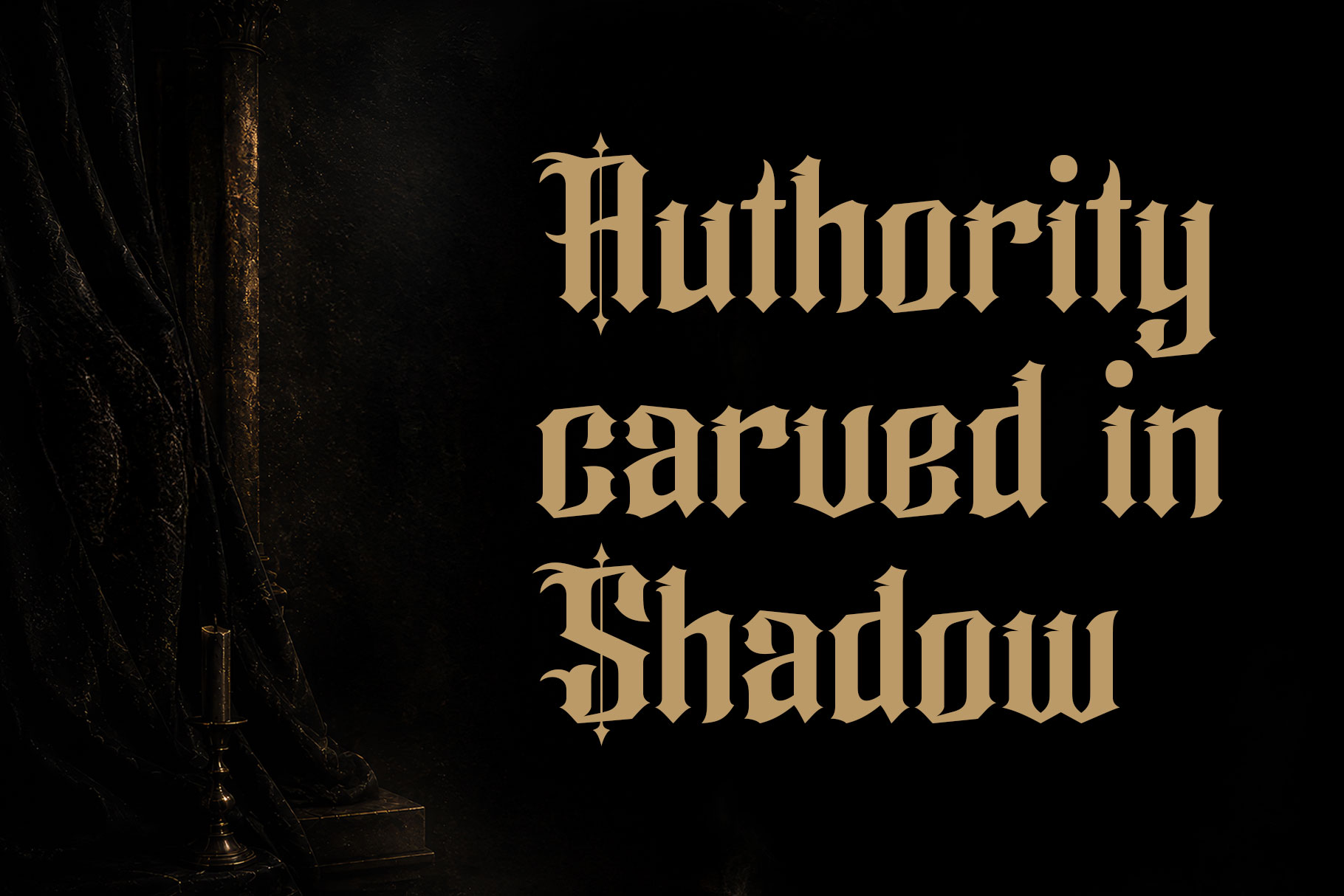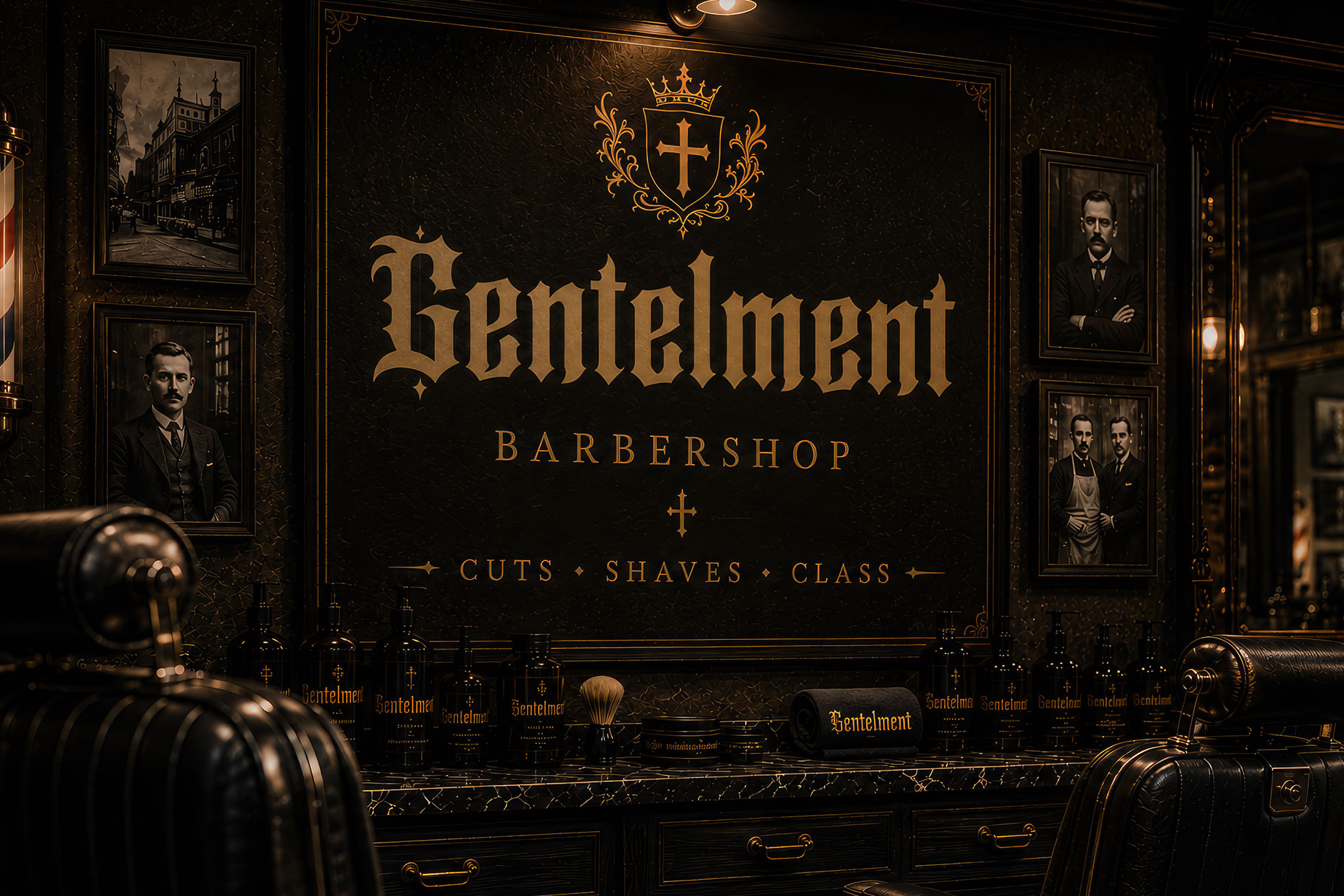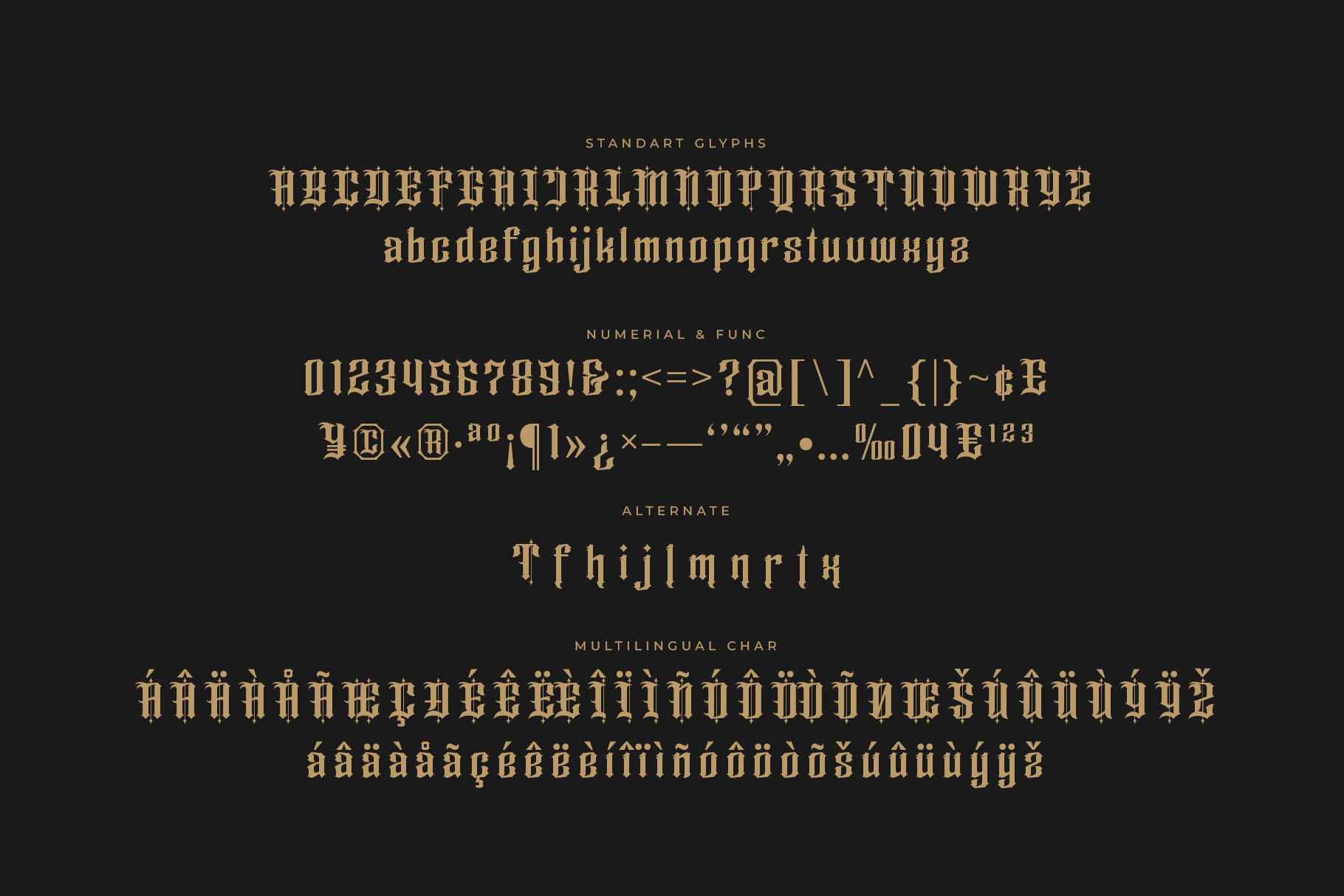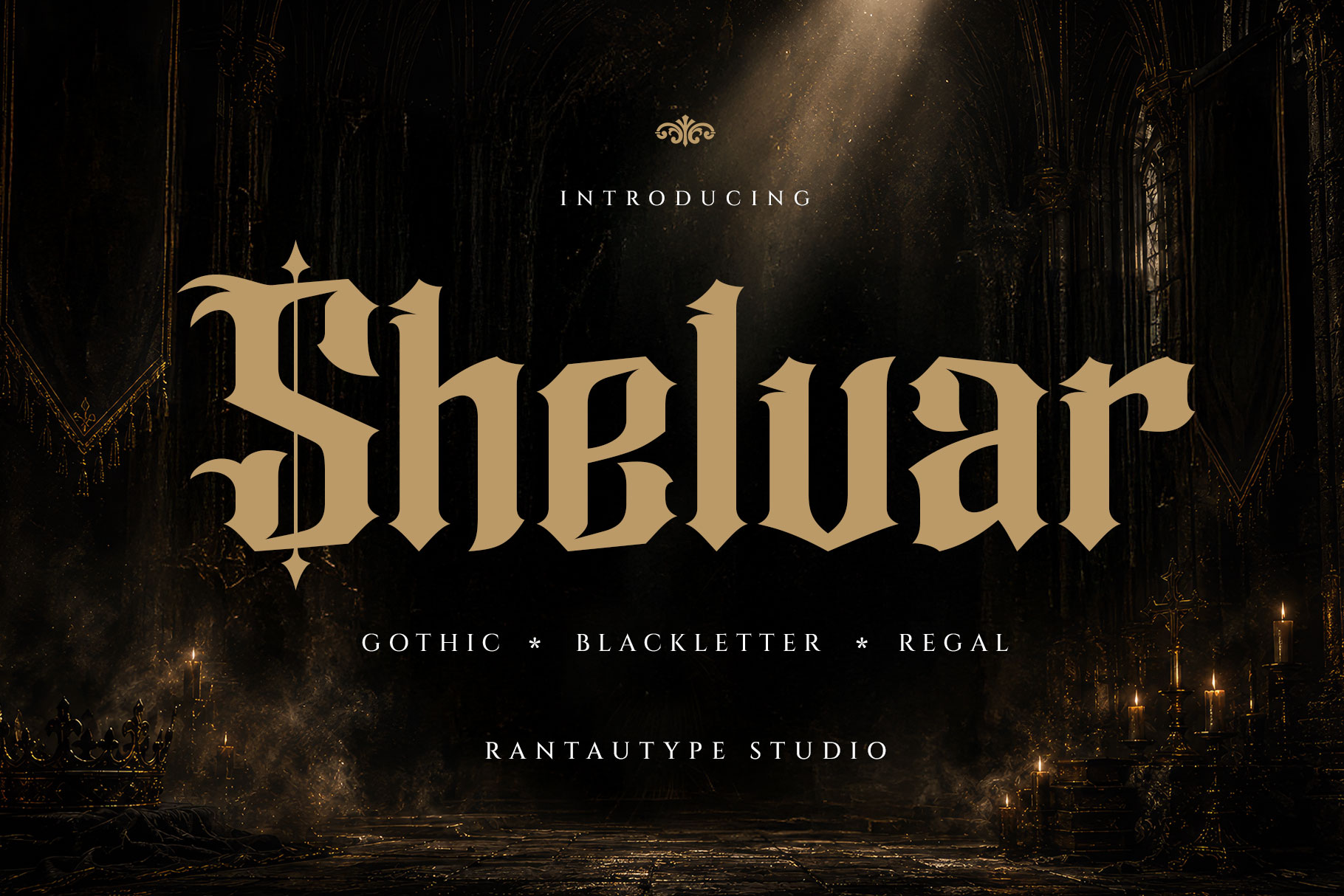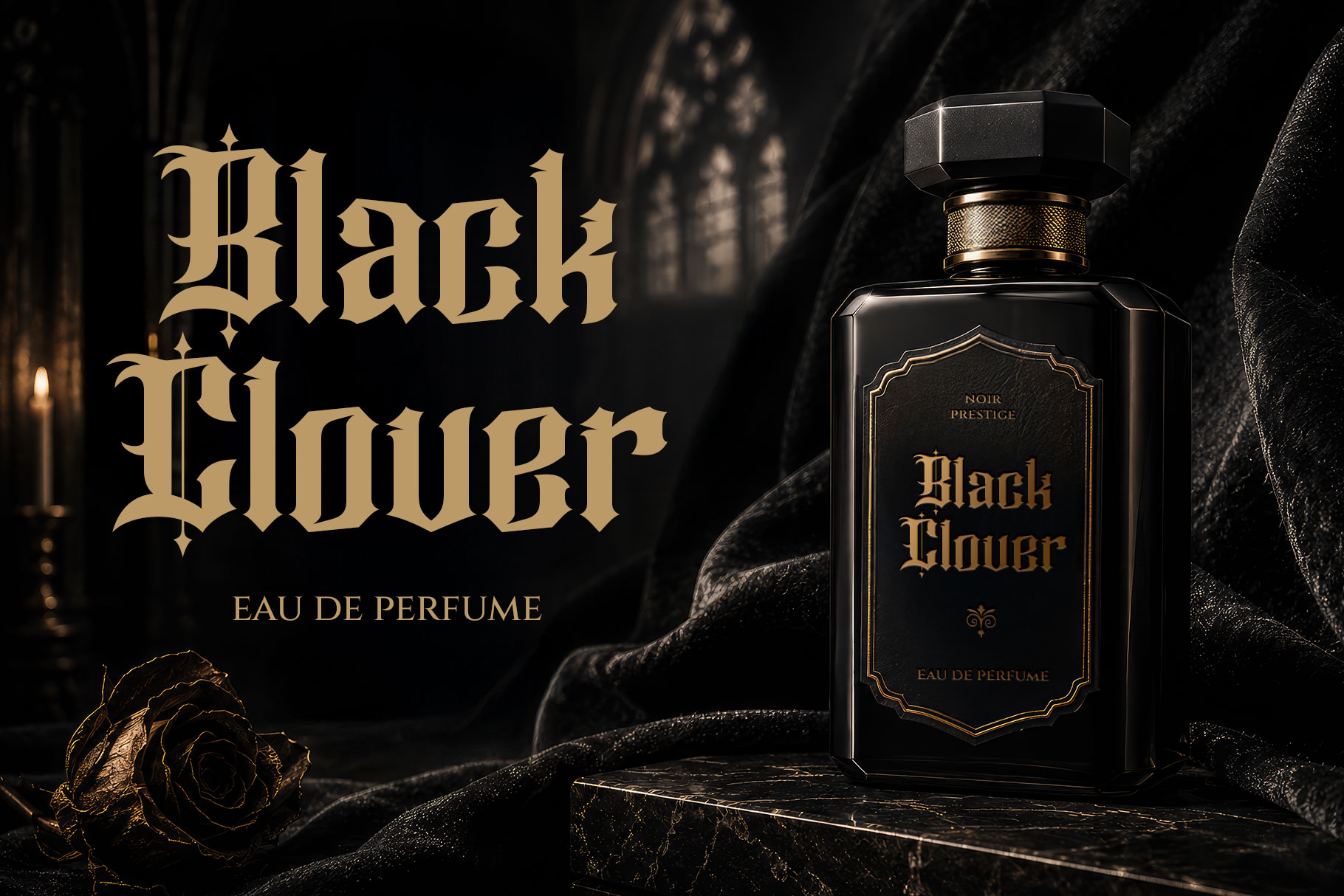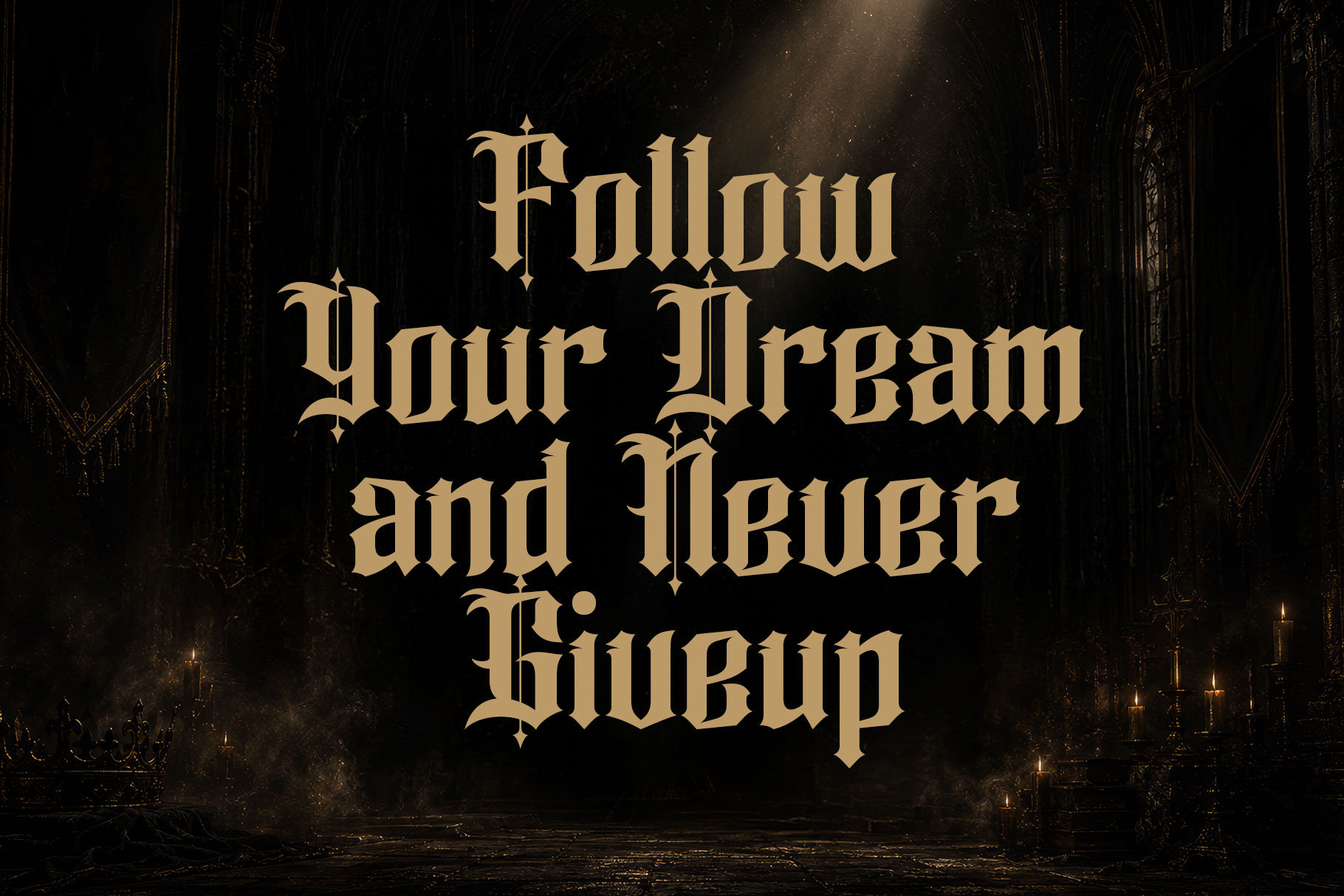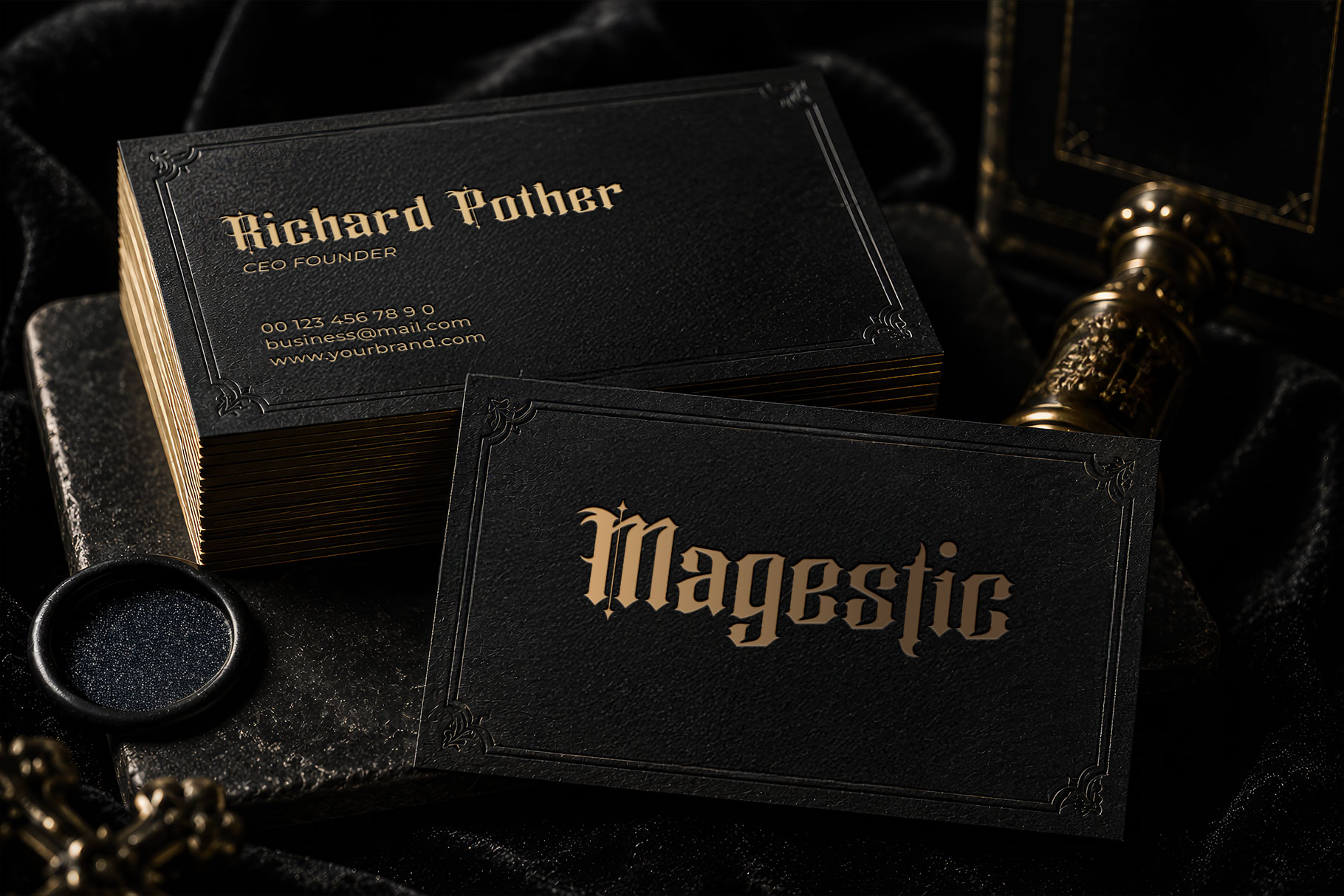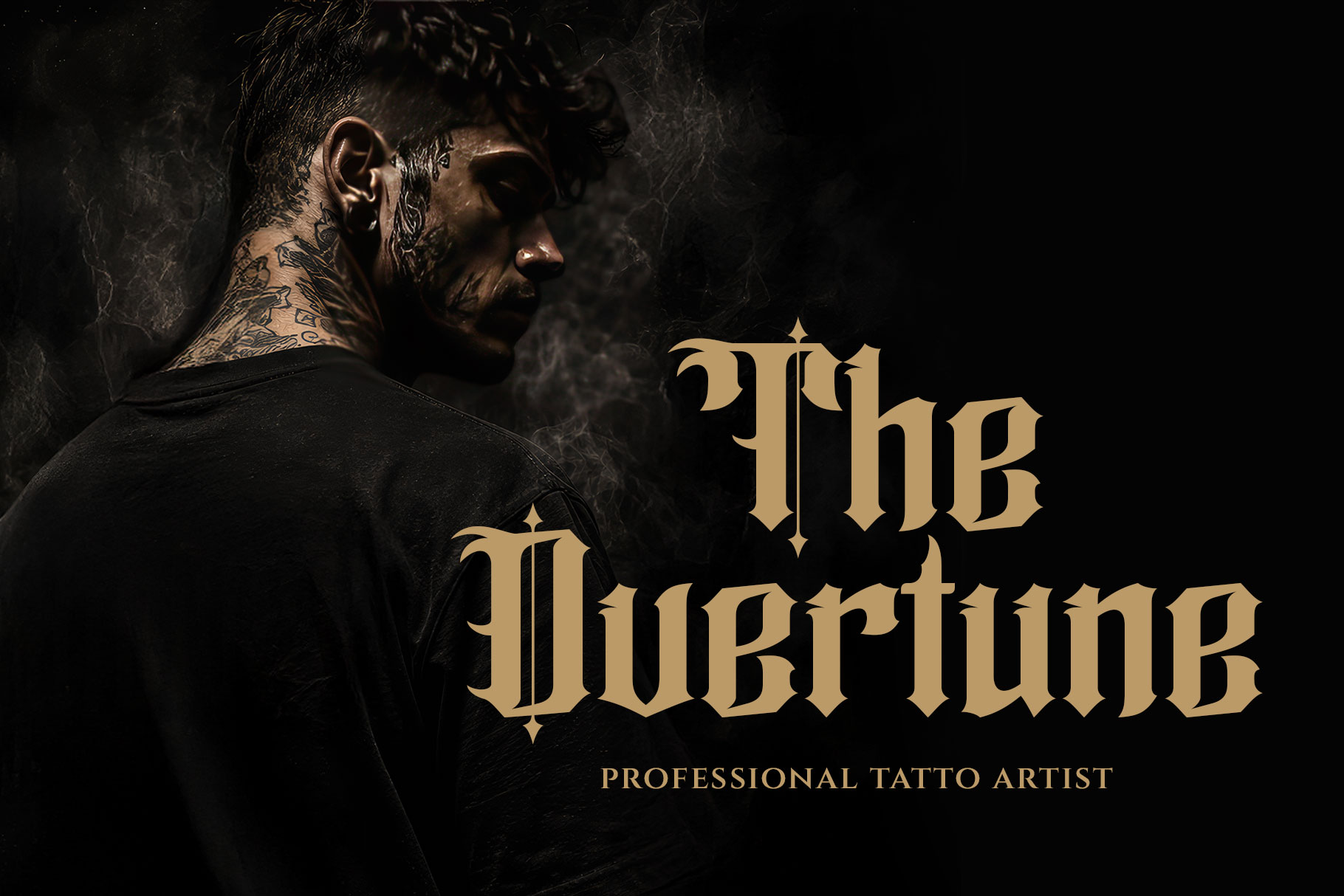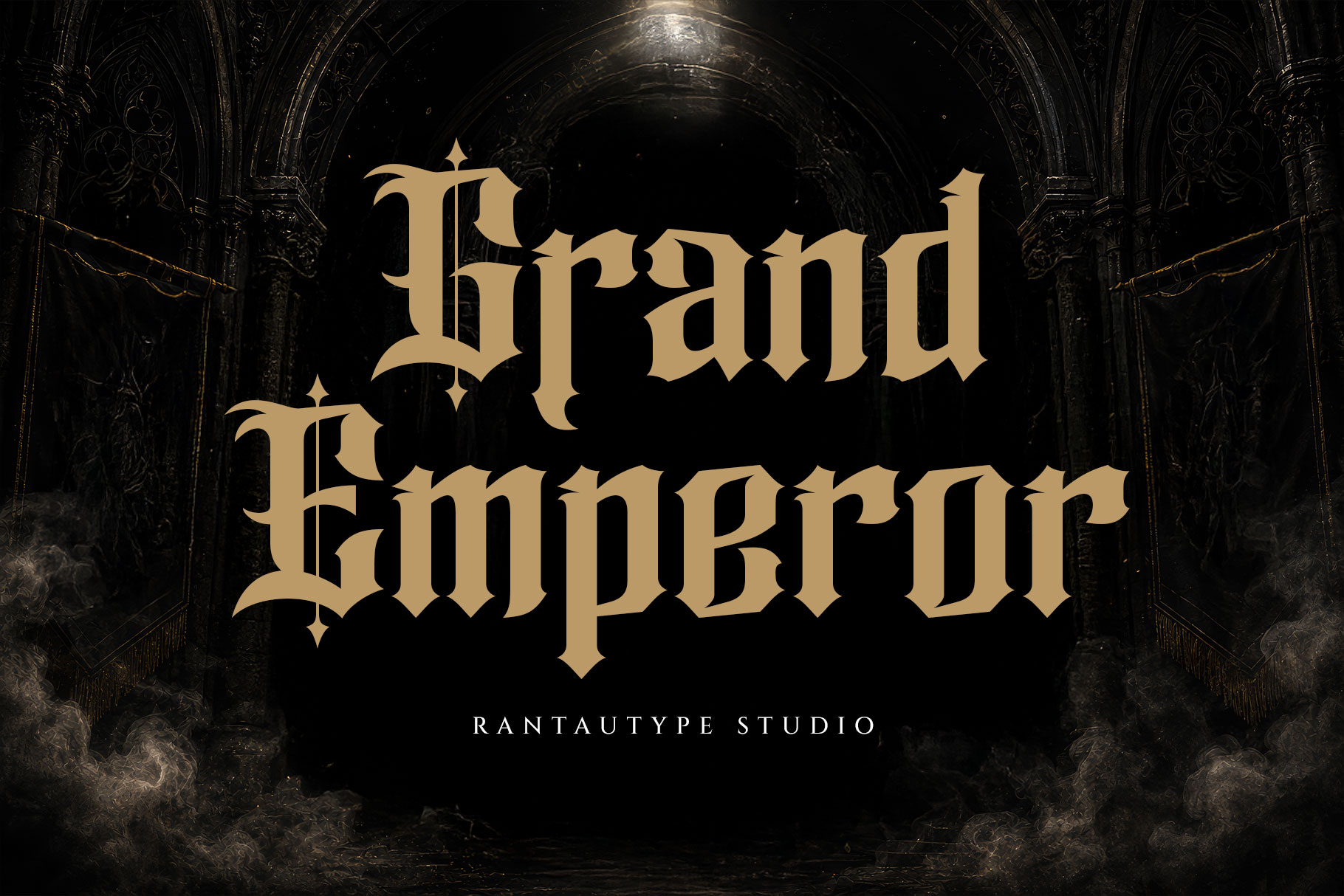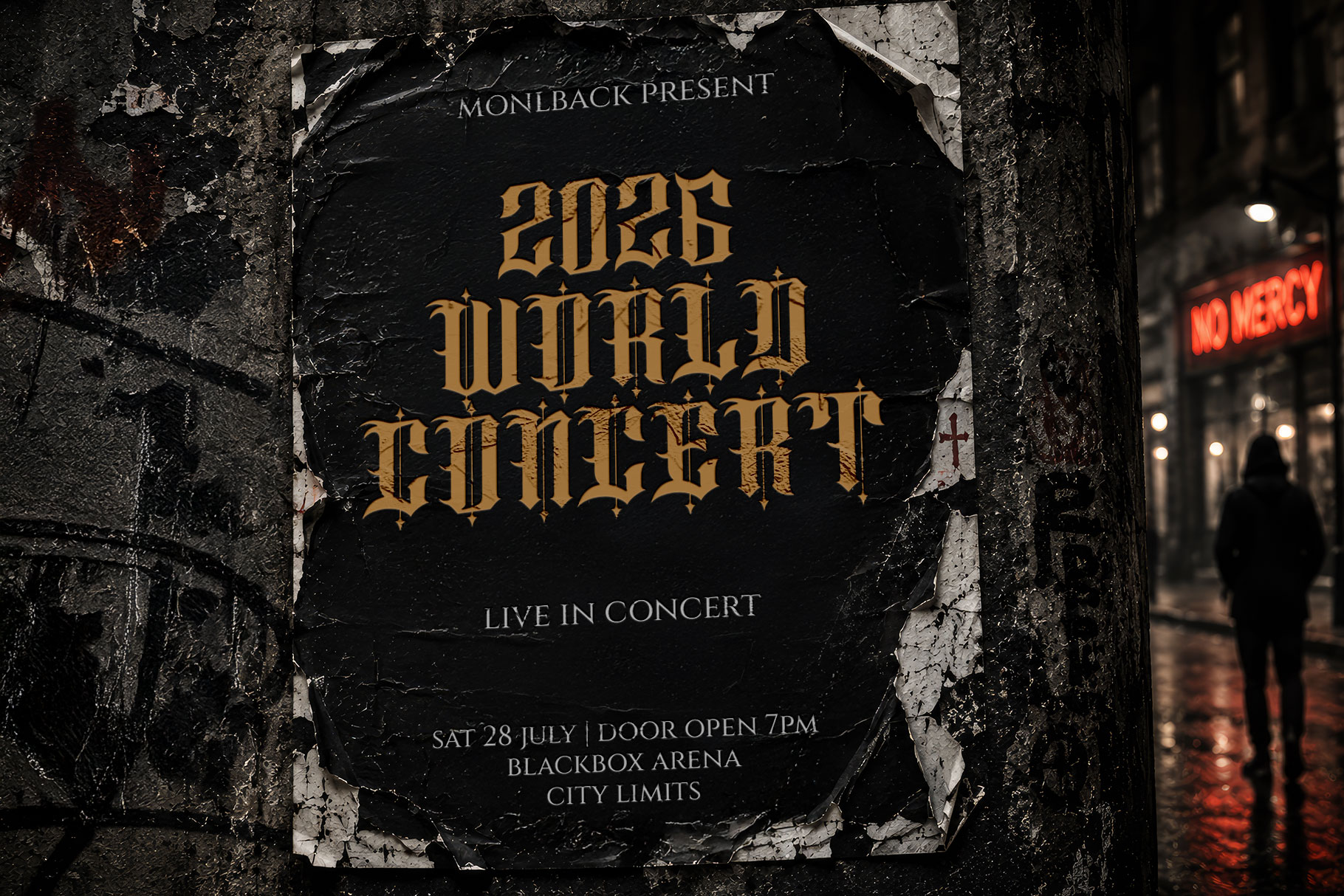
Shelvar Regular
Shelvar Italic
Shelvan is blackletter font inspired by gothic cathedral geometry, medieval insignia, underground luxury fashion, and modern editorial brutality. Shelvan is a perfectly choice for any creative endeavor, creating, modern, lifestyle design such as logotype, title, cover, branding, invitations, wedding designs, display and magazine, social media posts, advertisements, printed quotes, product packaging, corporate brand, product designs, labels, photography, watermarks, special events and any other project with gothic touch.